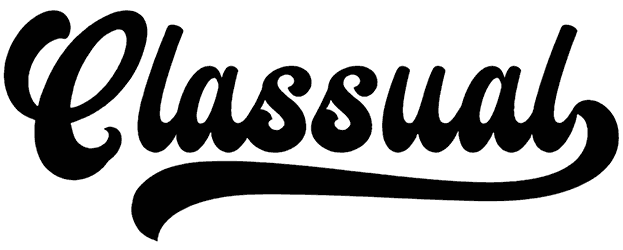
Classual Font
Classual is a calligraphic old-school font that supplies bold, groovy style characters which are fun. This font has a classical feel and is adapted, utilize it to reach one creative typography with a cool look that’s also adventurous.
Classual and its complete set of letterforms are brilliant for places like branding, advertising, logos, cards, movies, CD covers, and more. Keep in mind, this font can be challenging to read!